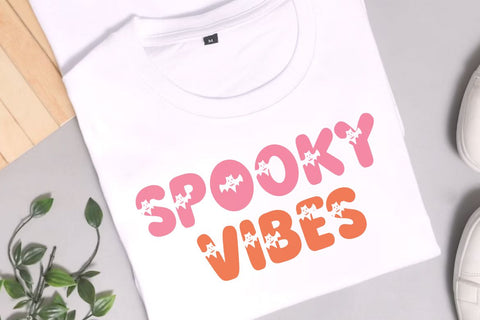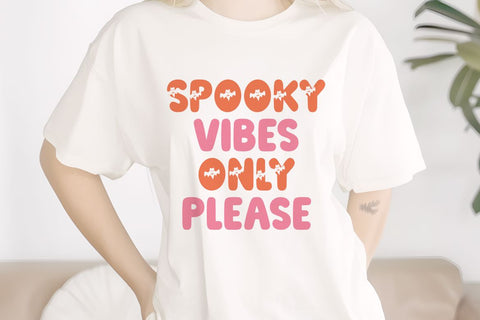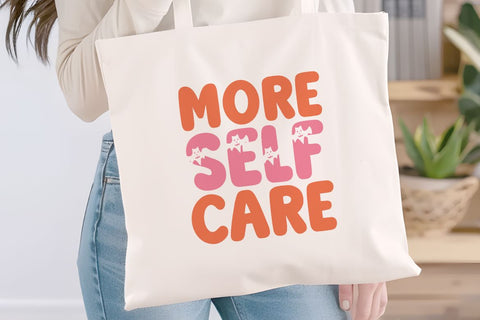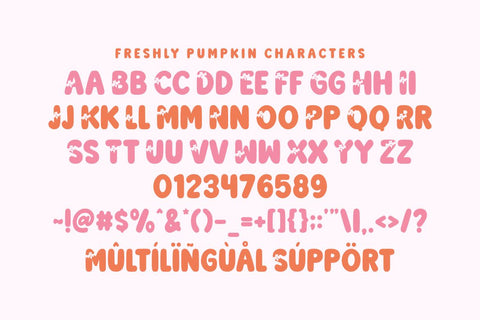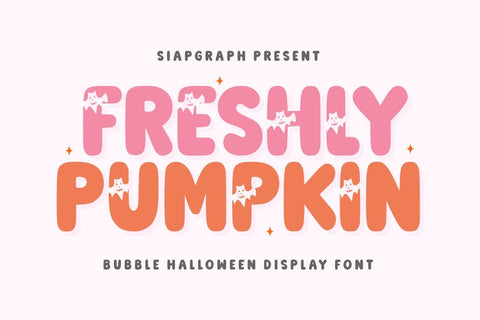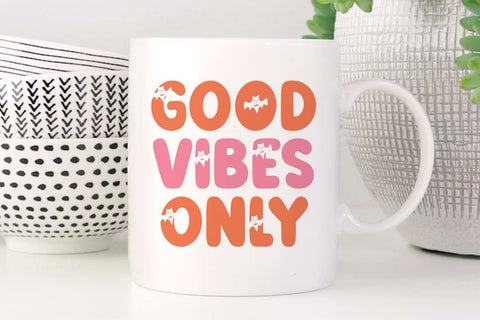
Freshly Pumpkin - Playful Bubble Font
Freshly Pumpkin is a fun and unique Bubble Halloween Display Font specially crafted to bring a festive, spooky-cute vibe to your seasonal designs. Featuring bold, chunky, and rounded letterforms integrated with adorable little pumpkin/ghost accents, this typeface is designed to make your projects stand out with a playful and cheerful personality. Its clean and solid construction is optimized for the crafting community, ensuring a seamless and frustration-free experience for vinyl cutting, sublimation, and high-quality digital printing.
Perfect for: creating high-impact SVG cut files, Halloween party invitations, trick-or-treat tote bags, spooky-cute t-shirts, festive stickers, autumn mugs, and playful social media graphics. Whether you are a professional Print on Demand (POD) seller or working on a special DIY holiday project, this font provides the ideal balance of readability and whimsical charm.
Great for holiday themes such as Halloween, Autumn/Fall festivals, Children's costume parties, and Fall celebrations, adding a sweet, cheerful, and festively spooky personality to all your seasonal design collections!